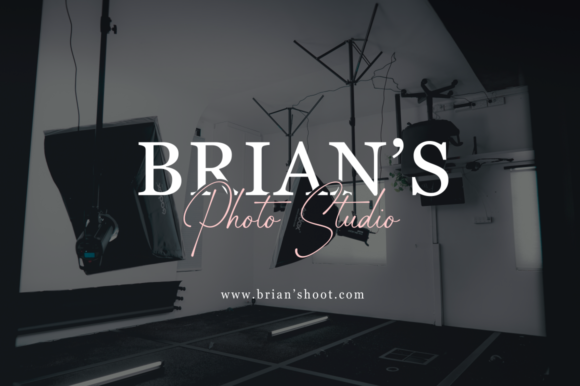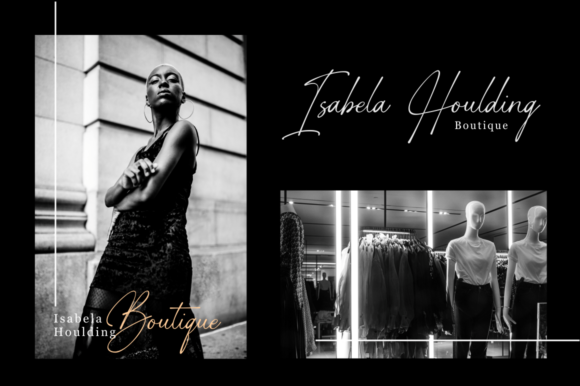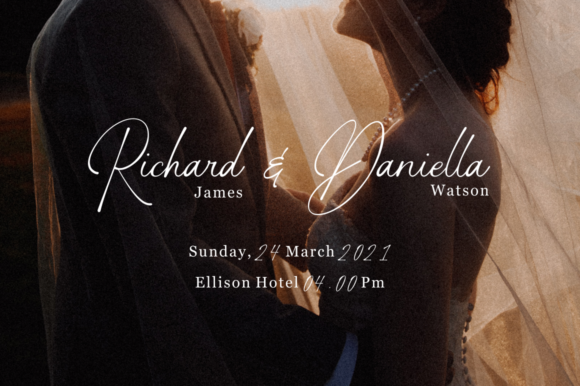
Gasthony Signature Font
Gasthony Signature is a stylish and delicate script font. It has a clean, thin and smooth vibe and it will be a hit for any design that you want to add it to. This font is PUA encoded which means you can access all of the glyphs and swashes with ease!